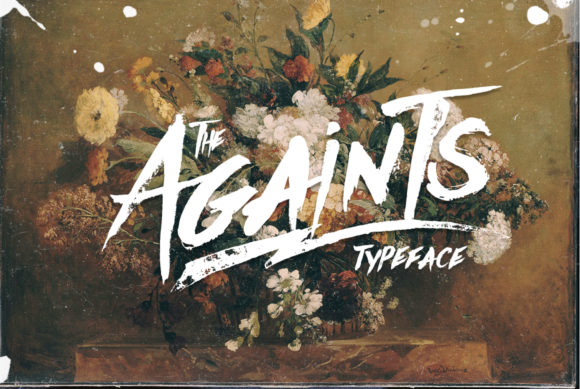
Behold, The Againts Font – A Font for the Bold and the Brave
In a world clamoring for attention, your designs must stand out like a bolt of lightning. Enter The Againts Font – a font that embodies the spirit of the daring, the audacious, and the unconventional.
Picture this: A font that screams power, confidence, and individuality. A font that transforms your designs into eye-catching masterpieces, leaving an indelible mark on the minds of your audience.
The Againts Font is more than just a collection of letters and symbols; it's an arsenal of visual weapons, ready to conquer the hearts and minds of your customers. Its distinctive and rough-textured design adds an aura of authenticity and intrigue to any project, whether it's a sports logo, a movie poster, or an adrenaline-fueled video game.
Imagine the impact of a logo emblazoned with The Againts Font – bold, unapologetic, and impossible to ignore. It's a statement of intent, a declaration of your brand's unique personality.
This font is not for the faint of heart. It's for those who dare to be different, who aren't afraid to push the boundaries and leave their mark on the world. Those who seek to create designs that ignite emotions, that spark conversations, and that leave a lasting legacy.
So, if you're ready to unleash your creativity and leave your competition in the dust, it's time to embrace The Againts Font. Its rugged charm and commanding presence will transform your designs into works of art, capturing the imagination of your audience and leaving them begging for more.